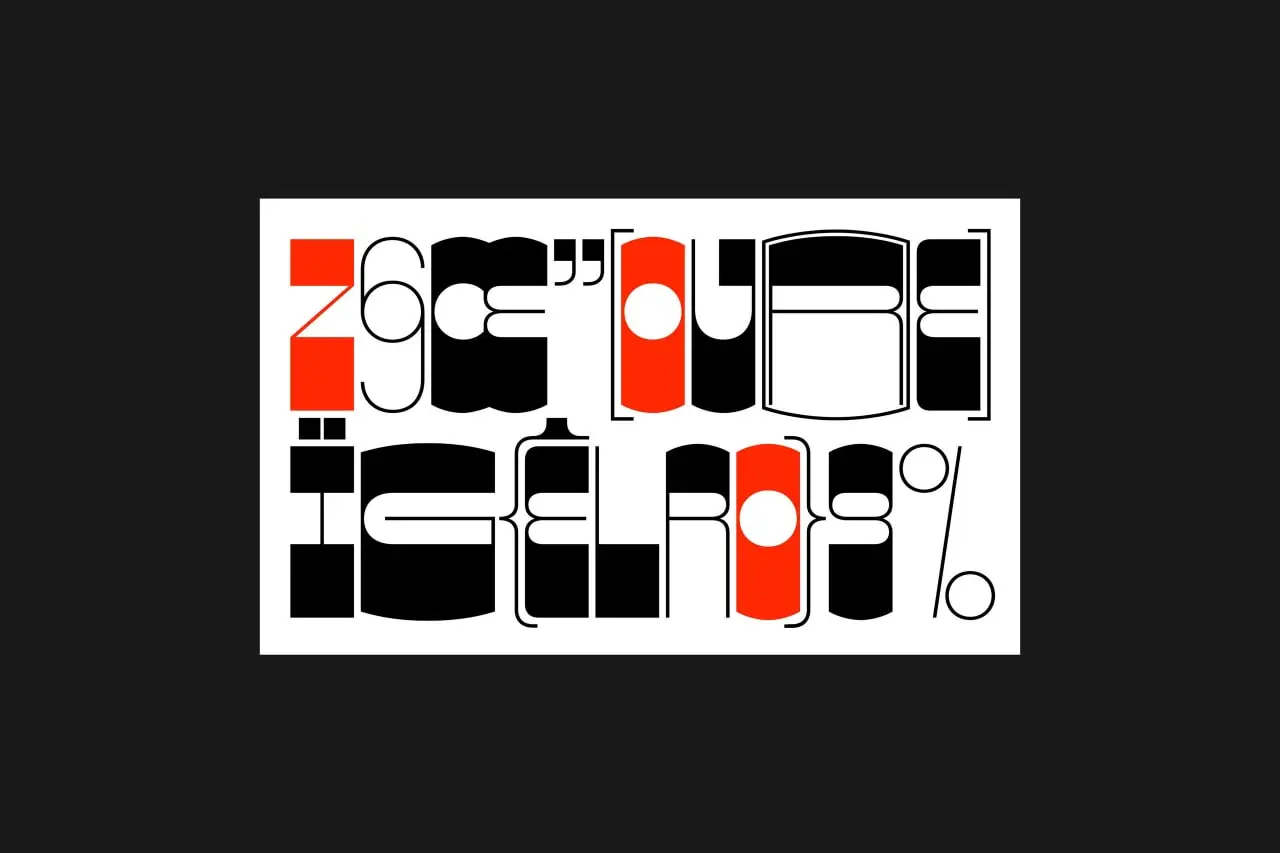
The Zoo Font Pair by Blazetype offers a unique blend of styles that are perfect for a variety of design projects. This font set includes two complementary typefaces that work harmoniously together, allowing for creative versatility in your designs.
- Extended Latin character set for multilingual support
- Two distinct styles: a bold display font and a clean sans-serif
- Multiple weights available for added flexibility
- Ideal for both print and digital applications
- Weights: Regular, Bold
- Perfect for branding, logos, and marketing materials
- Great for web design, ensuring readability and style
- Use in UI design for a modern and engaging look